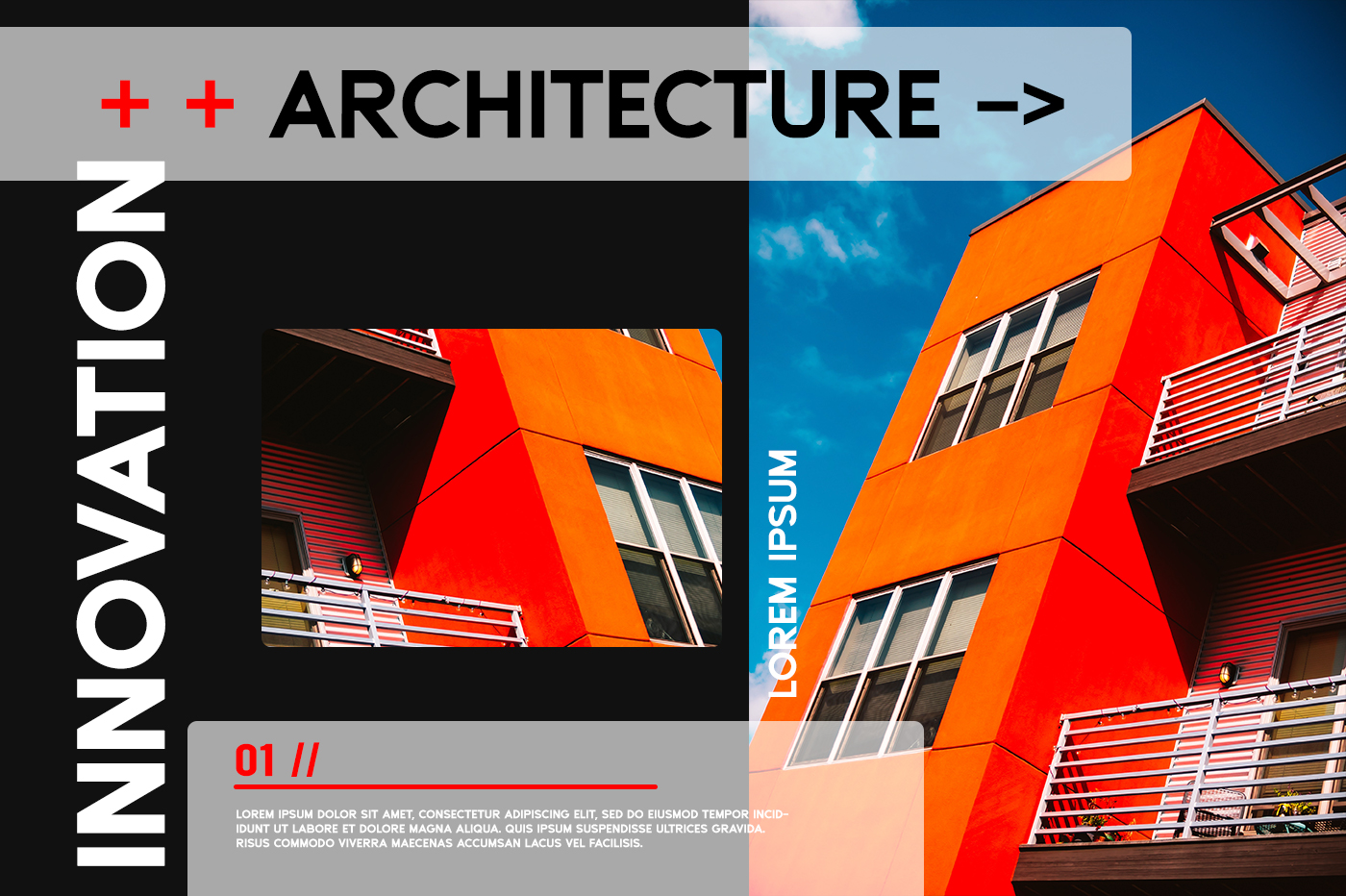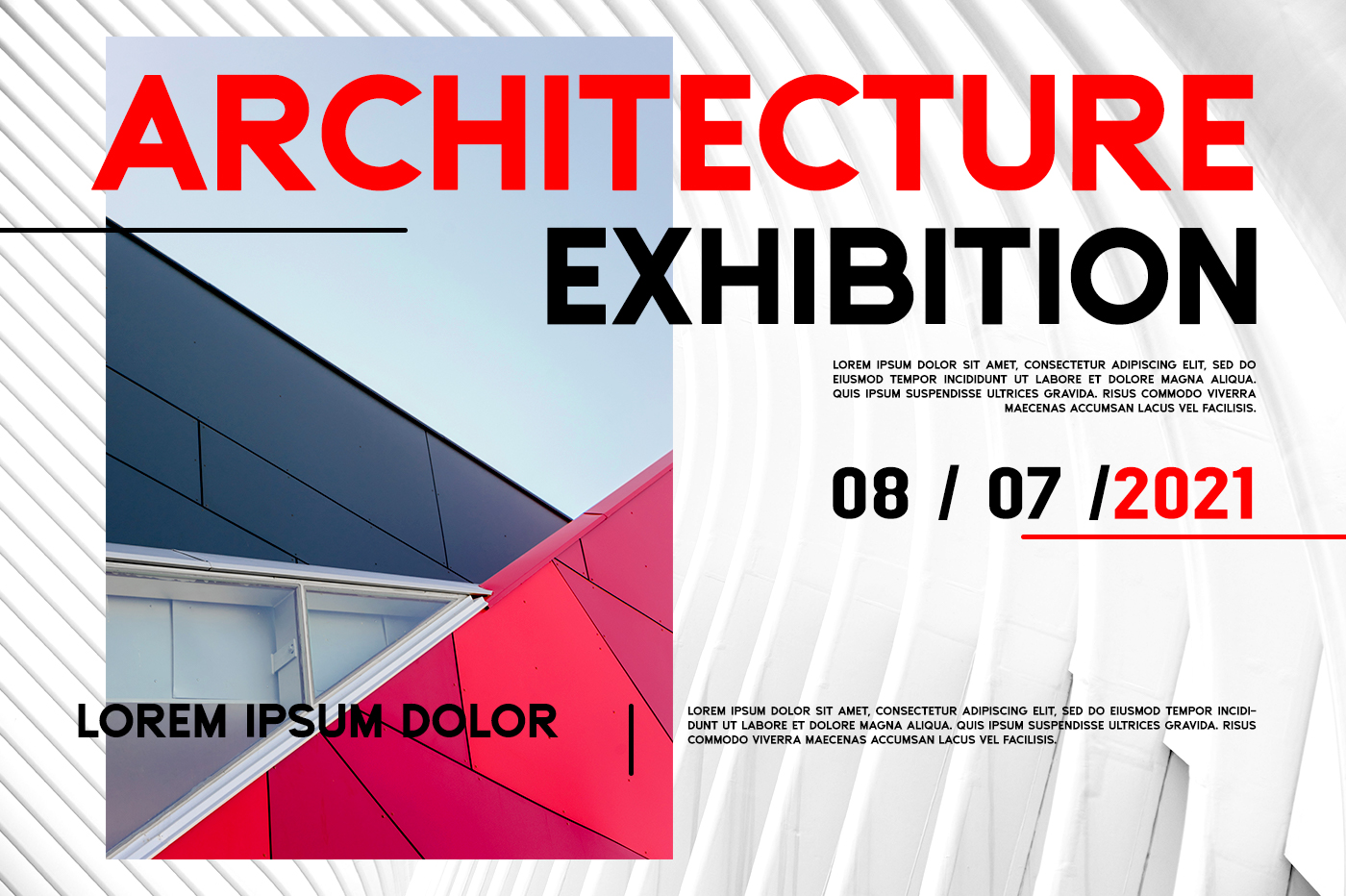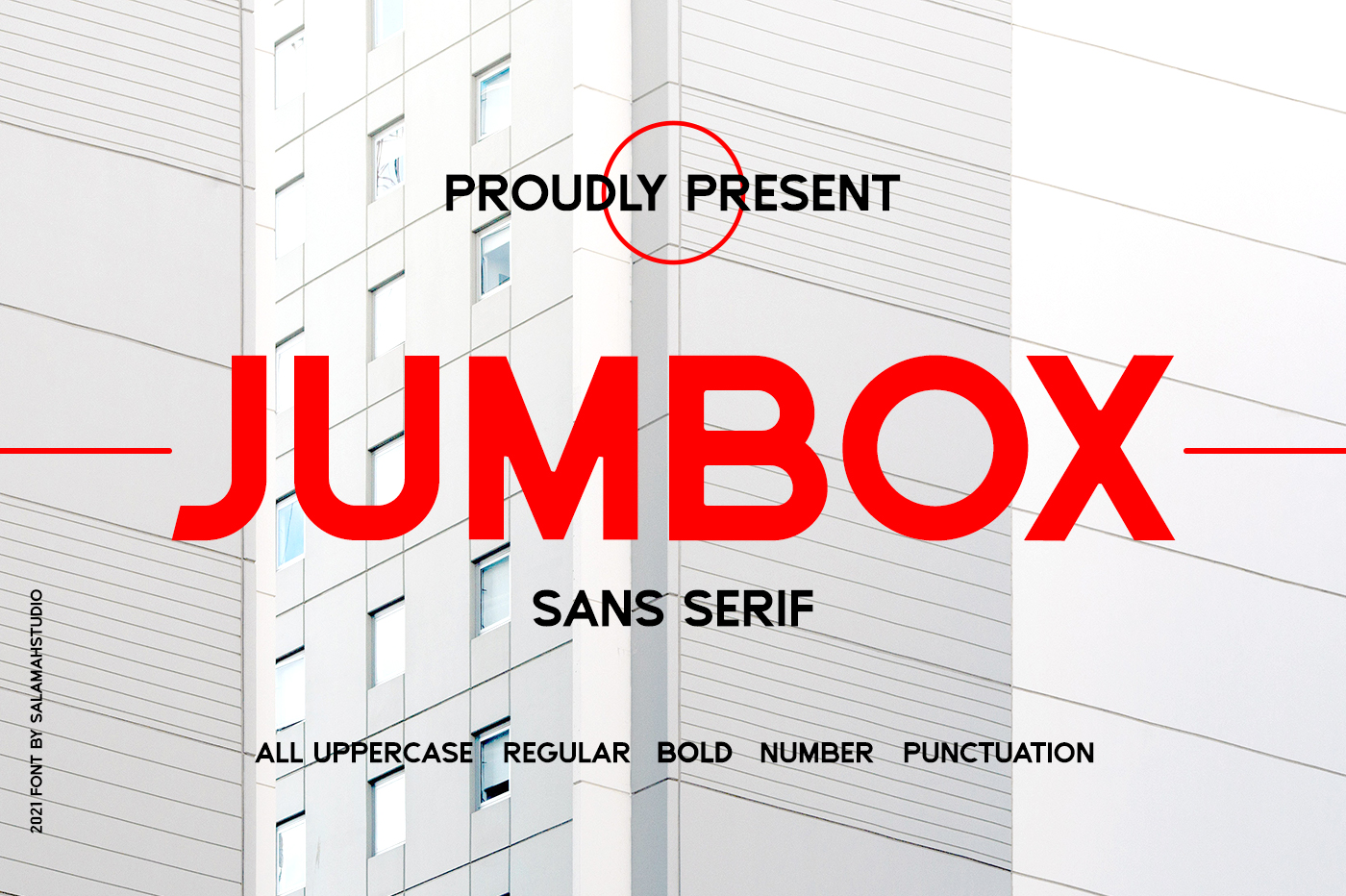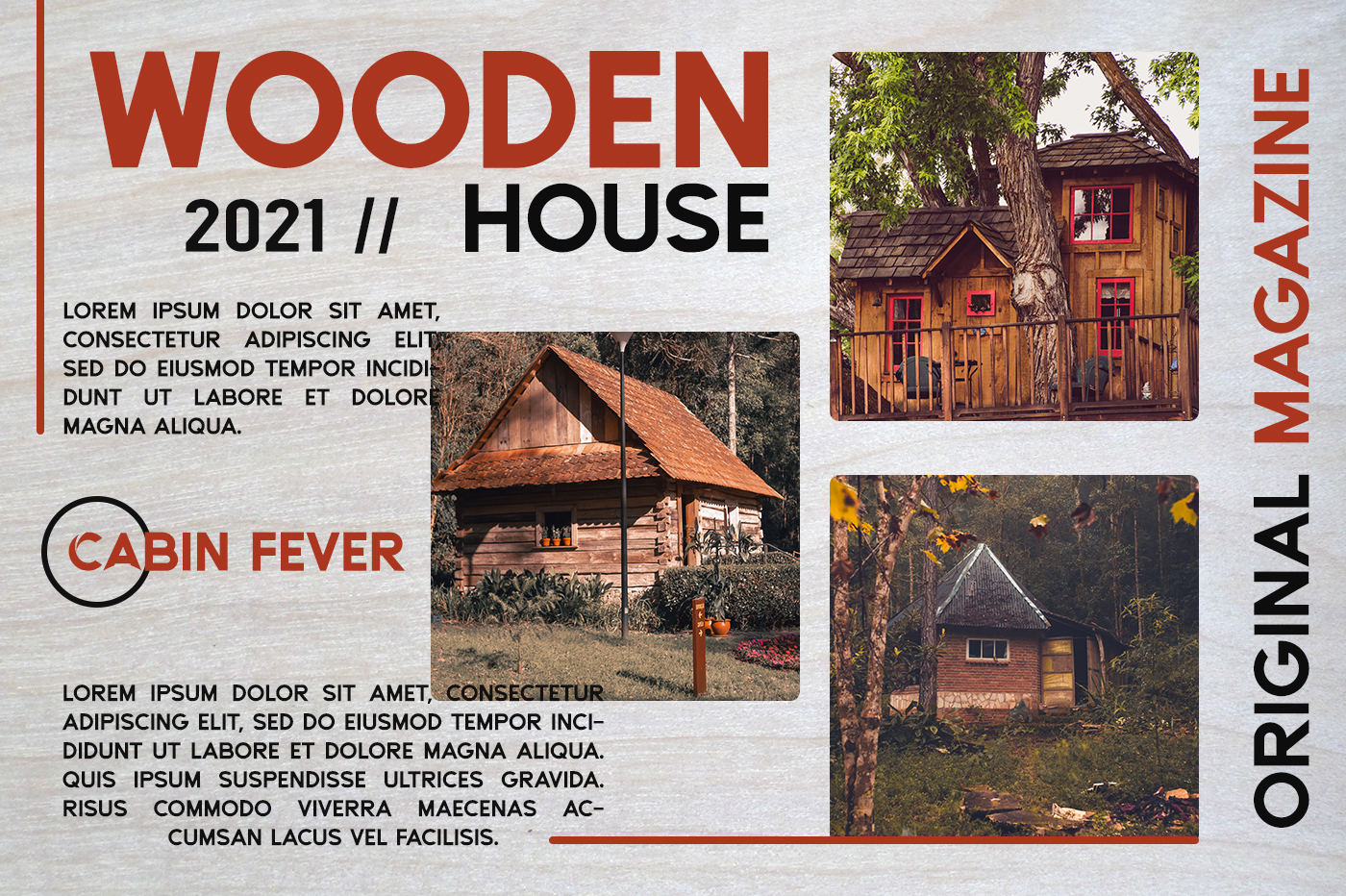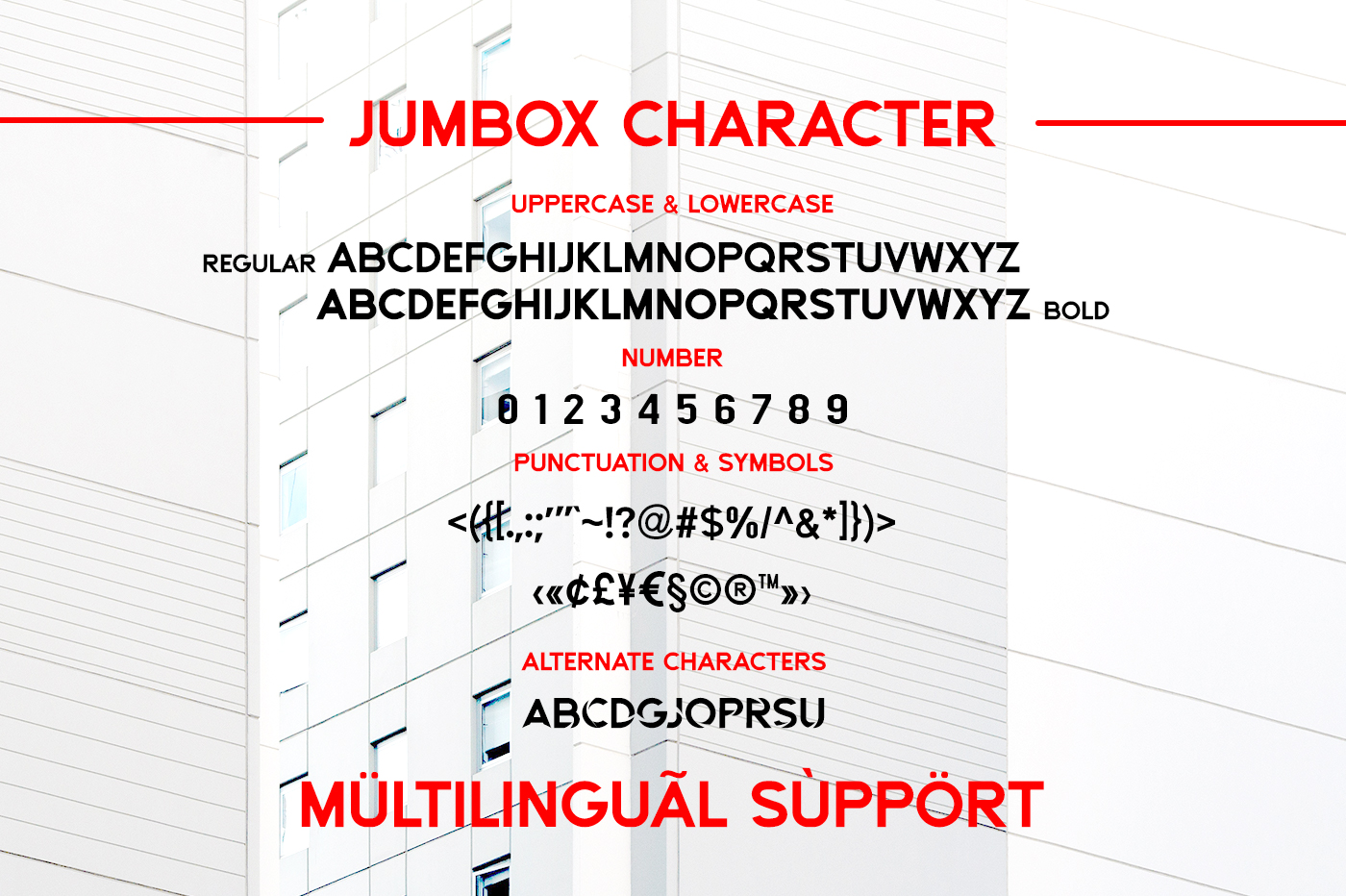
Jumbox Sans Serif Font
It’s a vintage-inspired display font with sharp and beautiful letters that create fonts that are modern, trendy and elegant. It will look stunning on any poster flyer or print. Use this font for your designs and explore its endless possibilities.